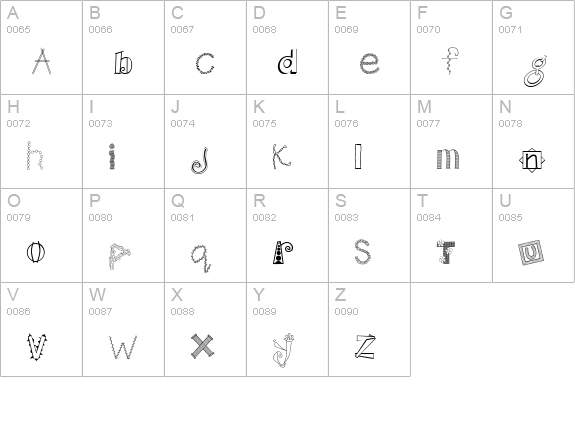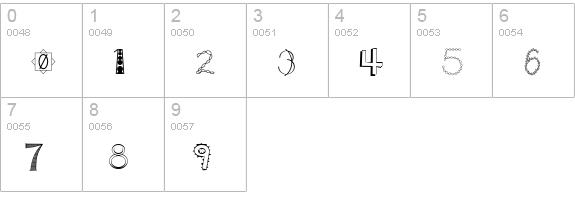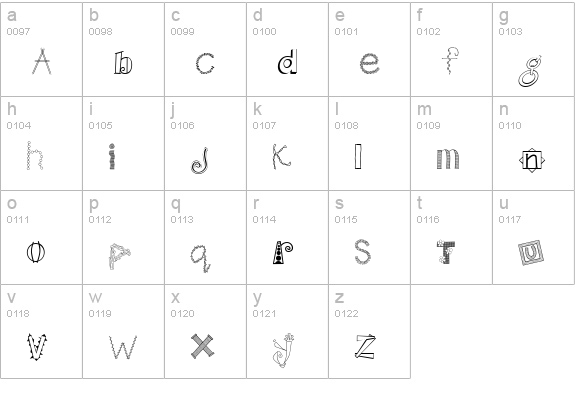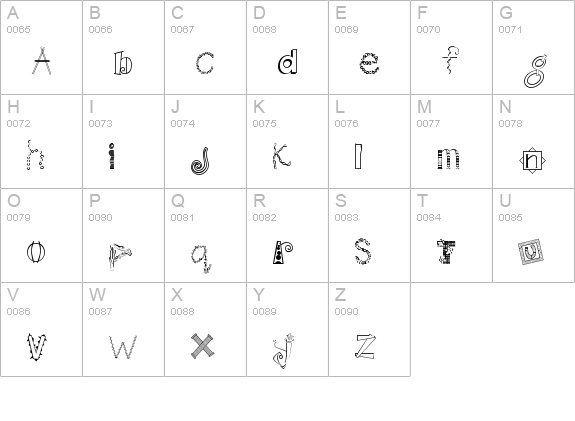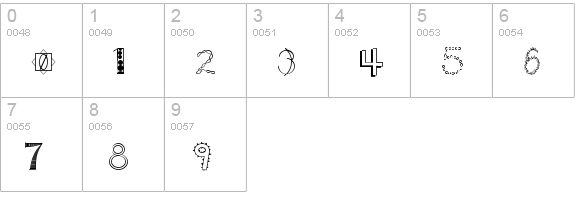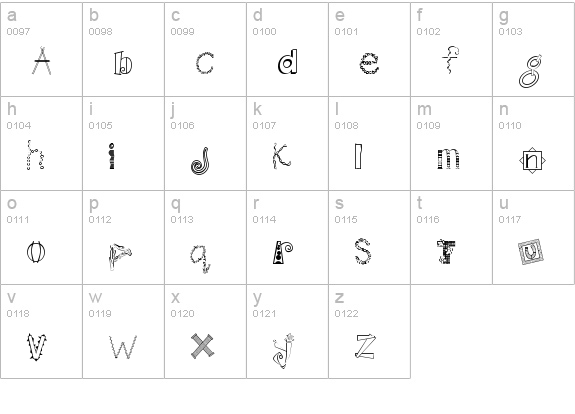
CK Wild n Crazy Font Details
Introducing CK Wild n Crazy font - a vibrant and playful typeface that brings a sense of fun and excitement to your design projects. This unique font features quirky and irregular letterforms that exude a lively and dynamic energy. Perfect for adding a touch of whimsy to posters, invitations, and branding materials, CK Wild n Crazy font is sure to make your designs stand out. Best of all, CK Wild n Crazy font is completely free to download at FontsMarket.com. So go ahead and unleash your creativity with this delightful and charming typeface. Whether you're working on a project for a children's book, a party invitation, or a product packaging design, CK Wild n Crazy font is the perfect choice to add a touch of playfulness and creativity. Download it today and let your imagination run wild!